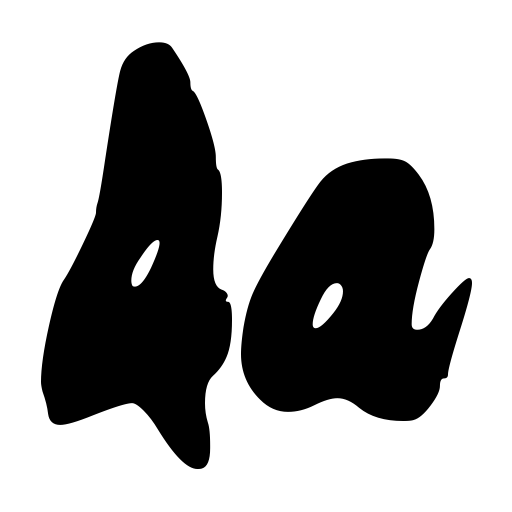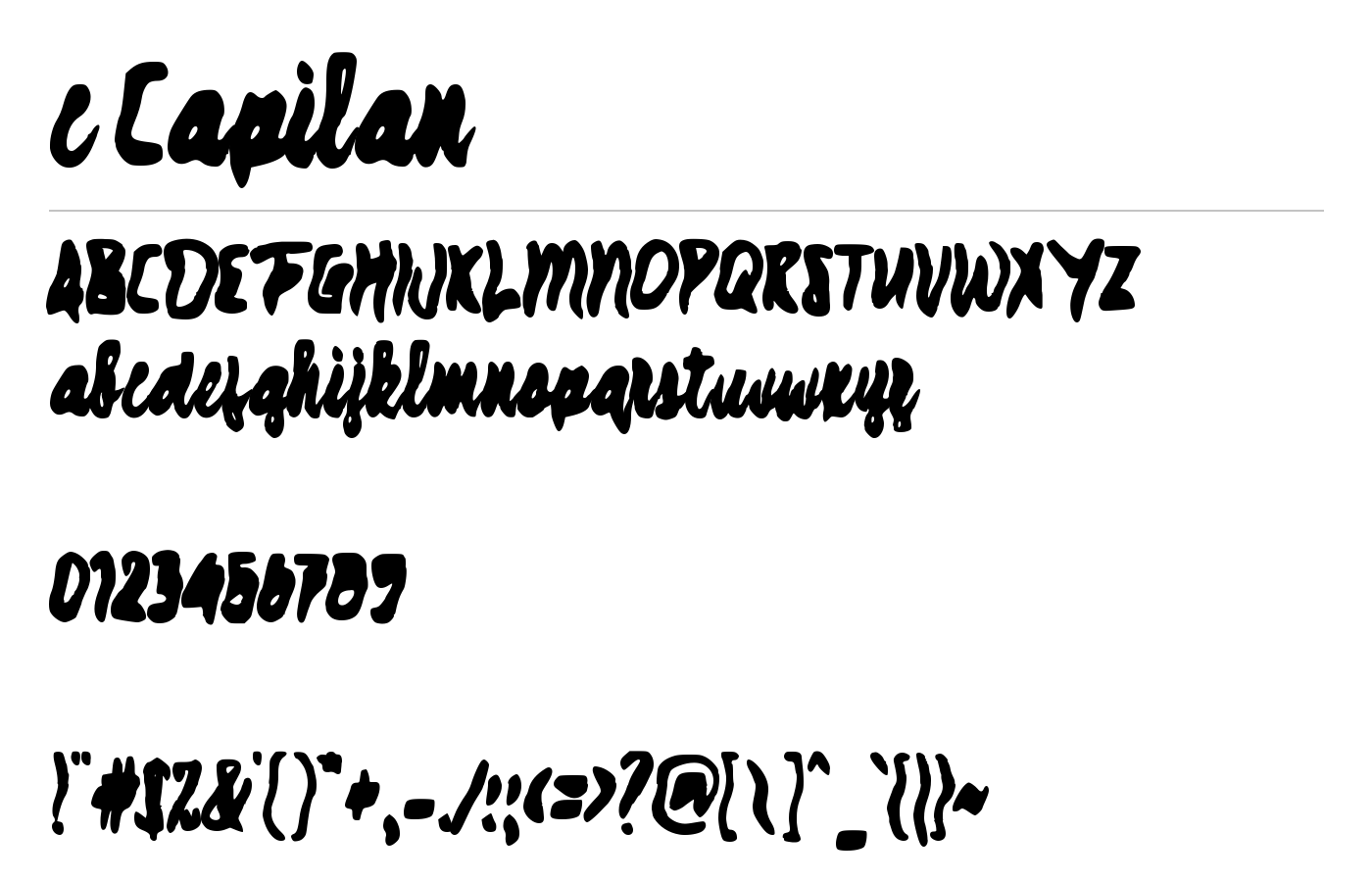
The Capilan font is a bold, playful script typeface with a hand-drawn, brush-like texture that gives it a lively and informal character. Its thick strokes and slightly irregular shapes create a casual yet eye-catching style perfect for designs that want to feel friendly and energetic. This font works wonderfully for logos, posters, and branding that aim for a creative, approachable, and fun vibe.
c Capilan Font